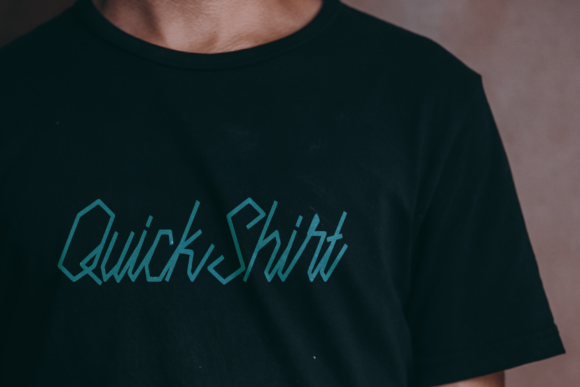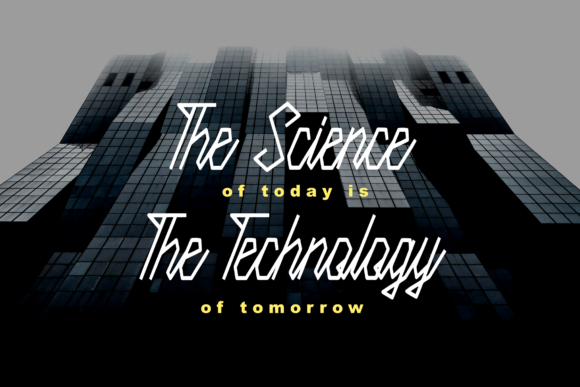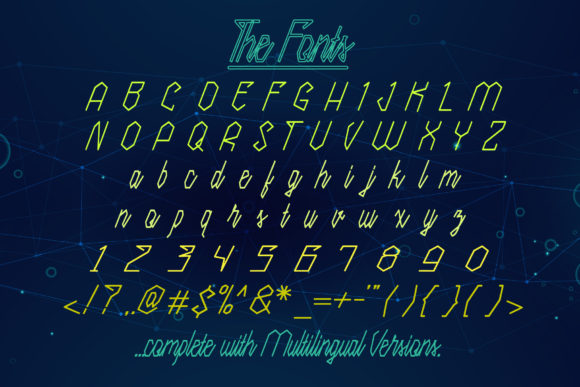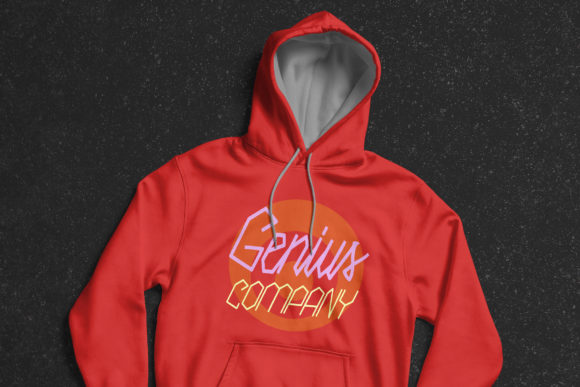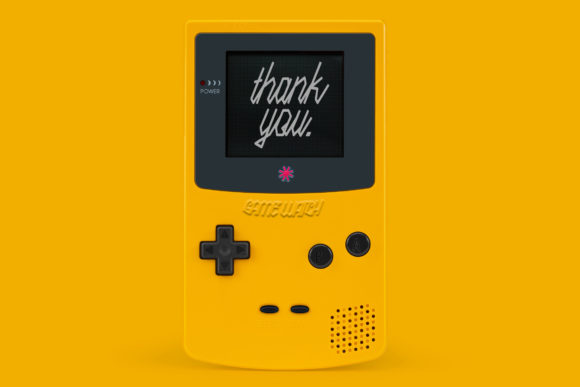
Introduction to Science Tech Font
As a designer, there’s nothing quite like the thrill of bringing a creative project to life. The rush of ideas, the excitement of experimentation, and the satisfaction of watching your vision take shape – it’s a feeling that never gets old. But sometimes, all it takes is the right design resource to elevate your work from good to great. For me, that resource was the Science Tech Font – a stunning monoline script font that added a touch of futuristic flair to my latest tech-themed design.
With its sleek lines, modern aesthetic, and high-quality feel, the Science Tech Font is the perfect tool for designers looking to create cutting-edge visuals that pop. Whether you’re working on a project that requires a transparent background or a bold, eye-catching statement, this font is sure to deliver. And the best part? It’s available for free download, making it an accessible and valuable addition to any designer’s toolkit.
Key Features of Science Tech Font
- High-quality design: Science Tech Font is a meticulously crafted font designed to meet the needs of creative projects, offering a unique blend of style and functionality.
- Unique design elements: This font features a distinctive blend of geometric and futuristic elements, making it an excellent choice for designers looking to add a touch of innovation to their creative project.
Honest Review: Science Tech Font
As a designer, I’m always on the lookout for high-quality design resources to enhance my creative projects. Recently, I came across the Science Tech Font, and I’m excited to share my honest review.
One of the things that stood out to me was the font’s sleek and modern aesthetic. The Science Tech Font is perfect for any design project that requires a touch of science and technology, from presentations to infographics.
- ⚠️ The font only includes a limited number of characters, which may not be suitable for projects that require a wide range of typography.
Overall, I’m impressed with the Science Tech Font and would definitely recommend it for any design project that requires a modern and sleek aesthetic. Just be aware of the limitations, and you’ll be all set for a successful design project!
Science Tech Font
The Science Tech Font is a versatile and modern design resource ideal for a wide range of creative projects. It features a high-quality, transparent background that allows for seamless integration with your design.
Tips for Getting the Most Out of Science Tech Font
To get the most out of Science Tech Font, try combining it with other design elements, such as bold lines and bright colors, to create a visually appealing design. You can also experiment with different font sizes and styles to add depth to your project.
Science Tech Font is perfect for:
- Infographics and data visualizations
Alternatives to Science Tech Font
1. Arial Rounded
Arial Rounded is a clean and modern sans-serif font suitable for a wide range of creative projects. It offers a high quality and elegant design, making it ideal for presentations and business reports. When to use: For a professional and approachable look, use Arial Rounded for headings and titles in your design resource.
Comparison to Science Tech Font: Arial Rounded is more traditional and less futuristic than Science Tech Font. It’s a better choice when you need a more conservative design, but still want a clean and modern feel.